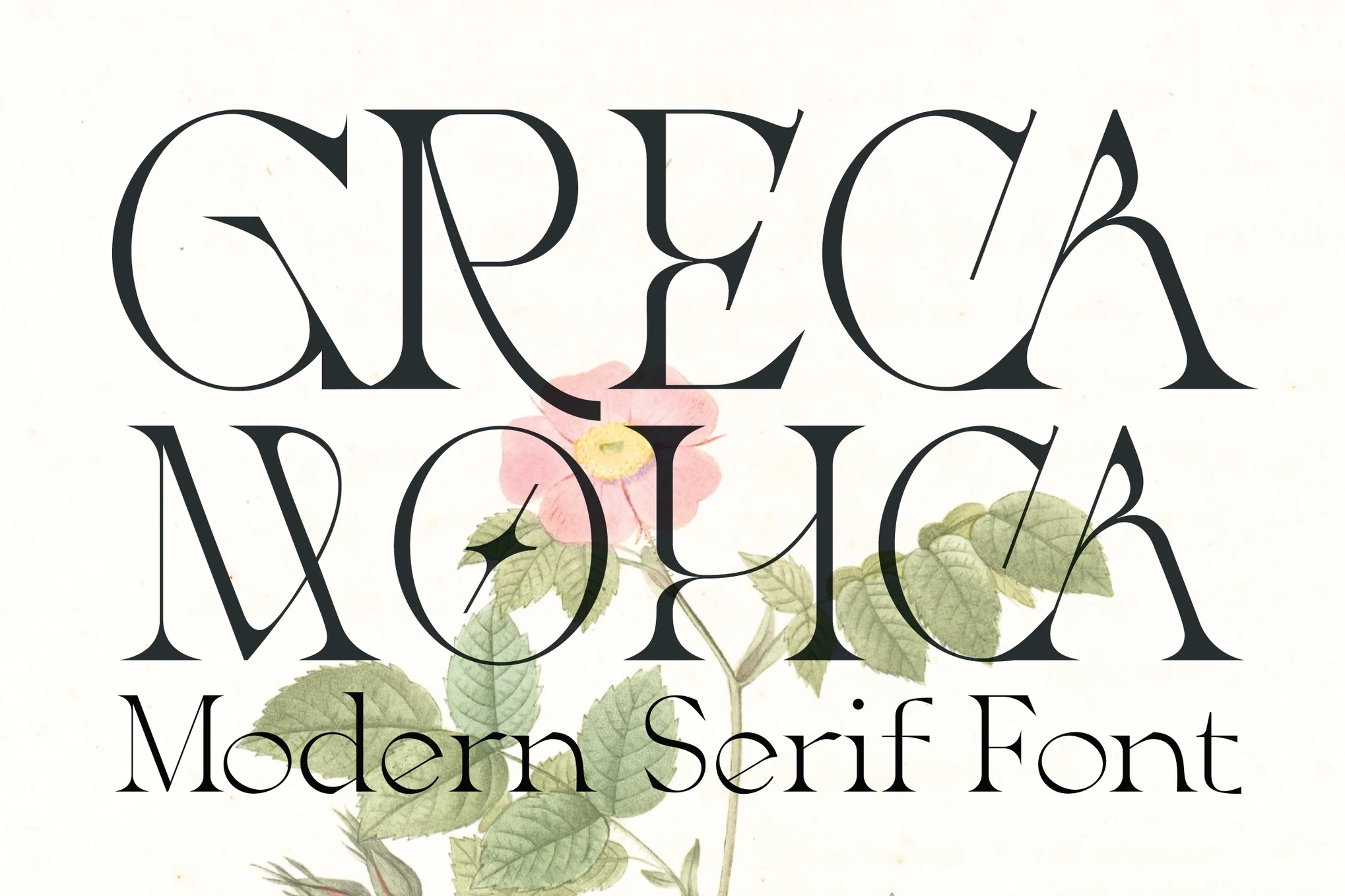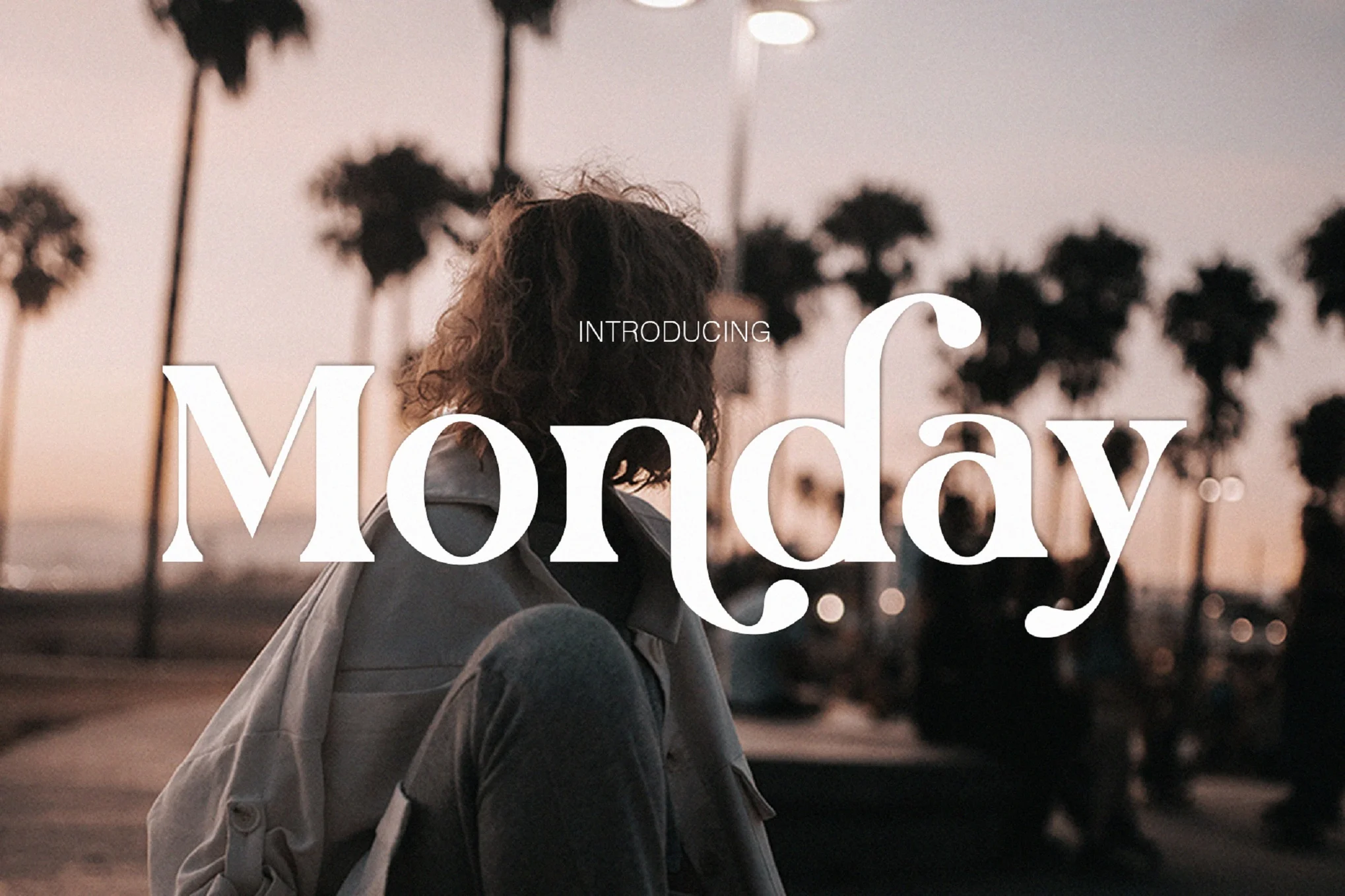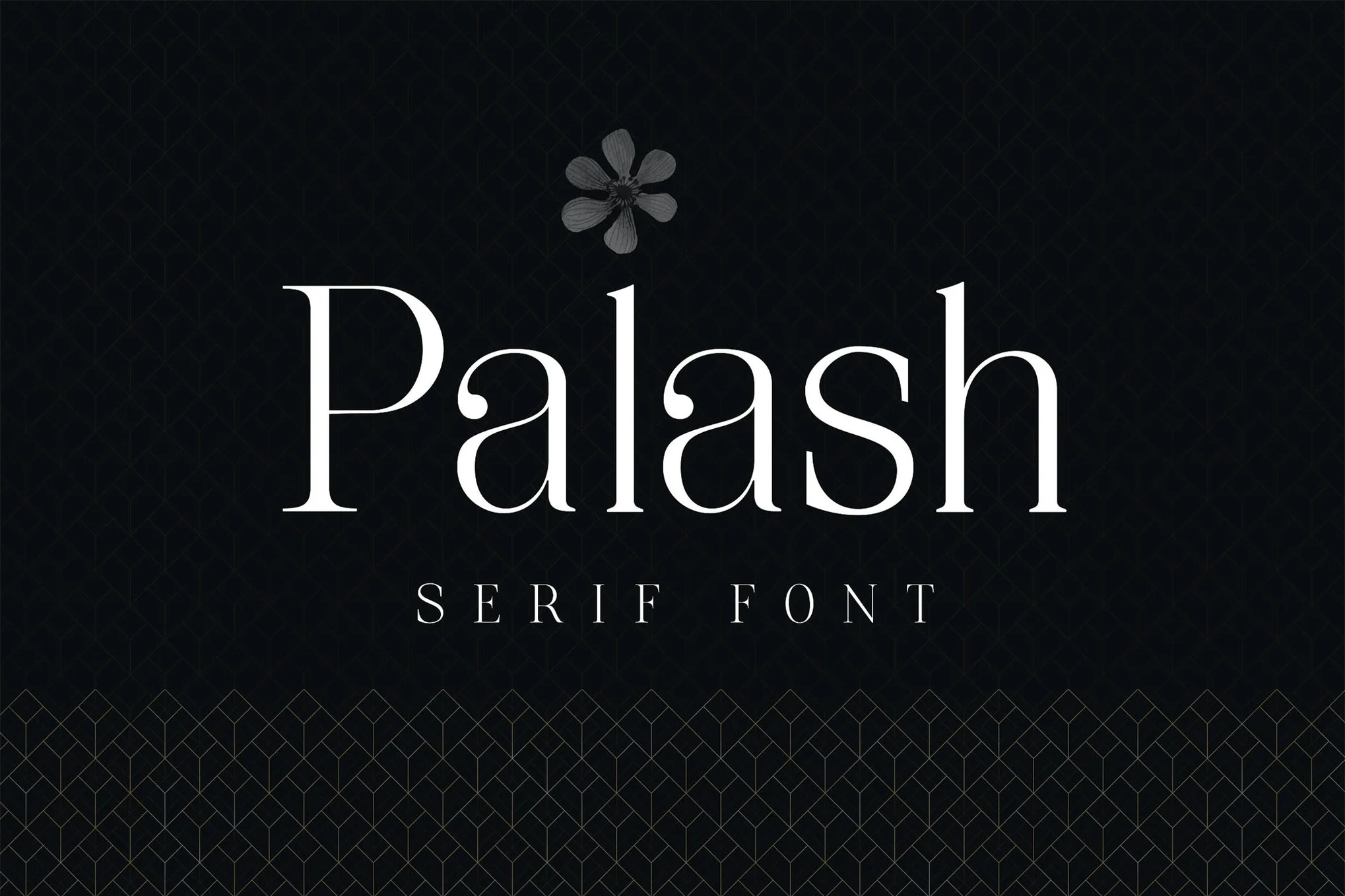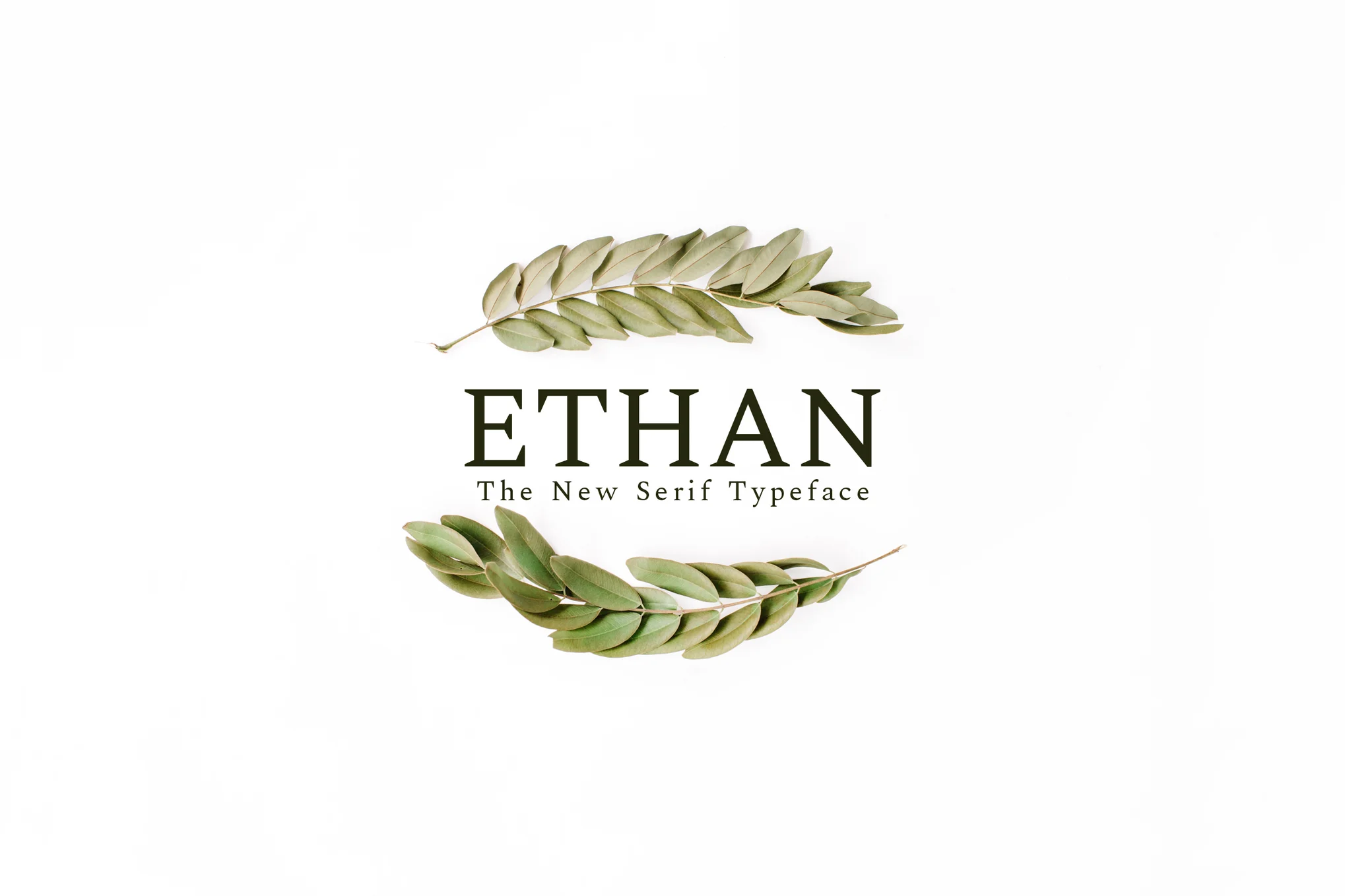
Looking for the absolute best serif fonts to elevate your design game? Your search ends right here! Serif fonts, known for their touch of sophistication and elegance, play a pivotal role in creating logos that exude class and distinction.
With their distinctive โlittle feetโ accents, navigating the vast array of serif fonts can be a captivating journey. To simplify this exploration, weโve meticulously handpicked the top ten serif fonts. These selections promise to elevate your branding and logo designs with their refined and polished aesthetics.
While your personal favorite might not make our curated list, we encourage you to delve into these font options. Among them, discover revived classics and unique variations that can infuse your logo with an unparalleled identity.
What is a serif font?
A serif font is a font with serifs, or small lines, at the end of each stroke. Serif fonts are generally seen as more traditional and formal than sans serif fonts, which do not have serifs. Serif fonts are often used in print media, such as books and newspapers, while sans serif fonts are more commonly used for digital media, such as websites and apps.
How to use a serif font?
Serif fonts are the most common type of font used in print media. They are easy to read and have a classic, timeless look. When used for body text, serif fonts are generally best paired with a sans serif font for headings or other short blocks of text.
Doโs and donโts of using a serif font?
When using serif fonts, it is important to consider the following:
- Use serif fonts for body copy
- Use a larger size for serif fonts to ensure readability
- Consider the overall tone you wish to convey with your serif font choice
23+ Best Serif Fonts for Eye-Catching Typography
1.ย Macloney โ Bold Serif Font
Macloney is a bold serif font perfect for headlines, logos, and other creative uses. This unique font features sharp edges and tall letters, making it stand out from the crowd. Macloney is sure to grab attention and add personality to any project!
2. Felis Serif Font
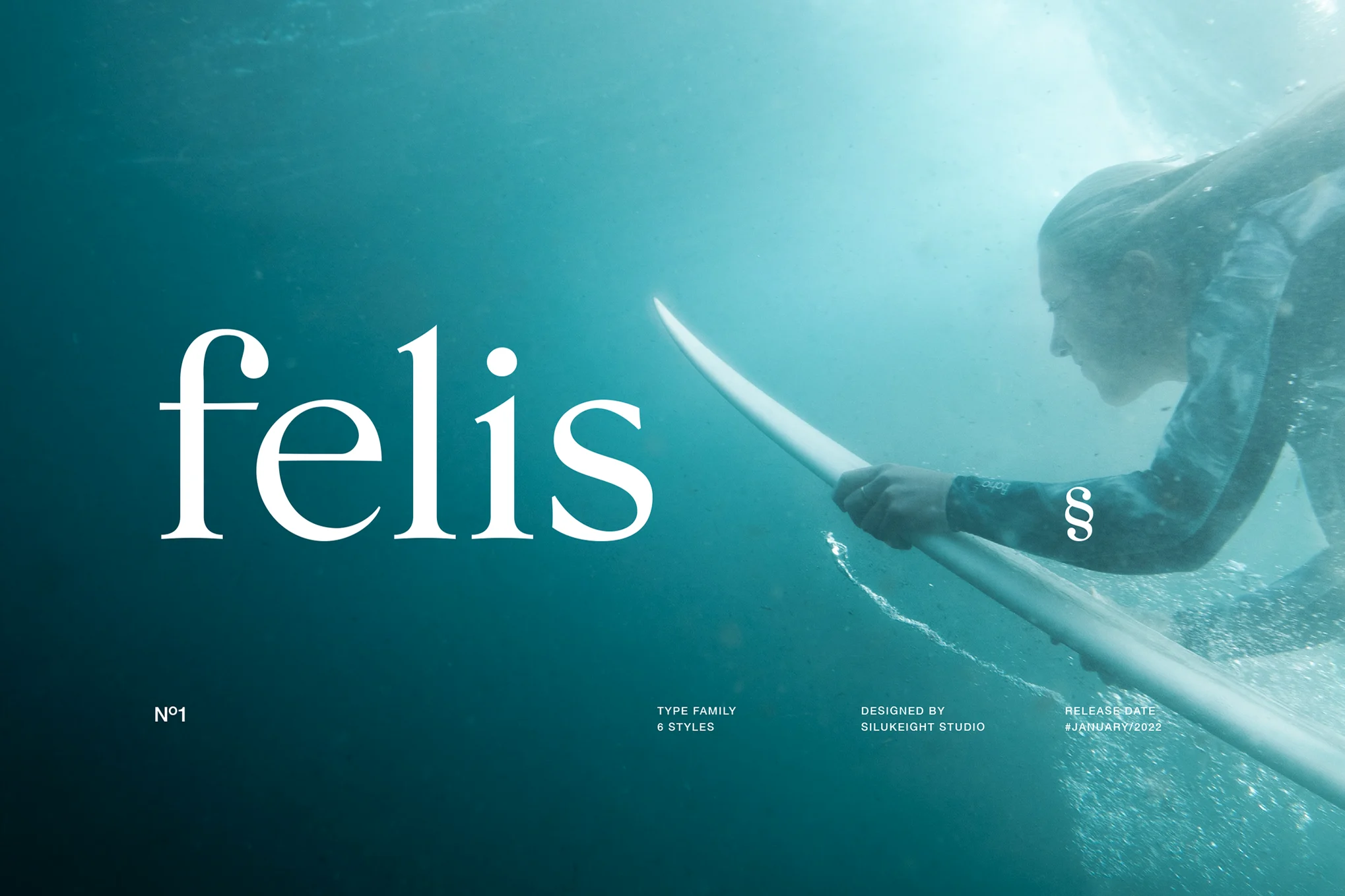
Macloney is a bold serif font perfect for headlines, logos, and other creative uses. This unique font features sharp edges and tall letters, making it stand out from the crowd. Macloney is sure to grab attention and add personality to any project!
3. EROS- Serif Font
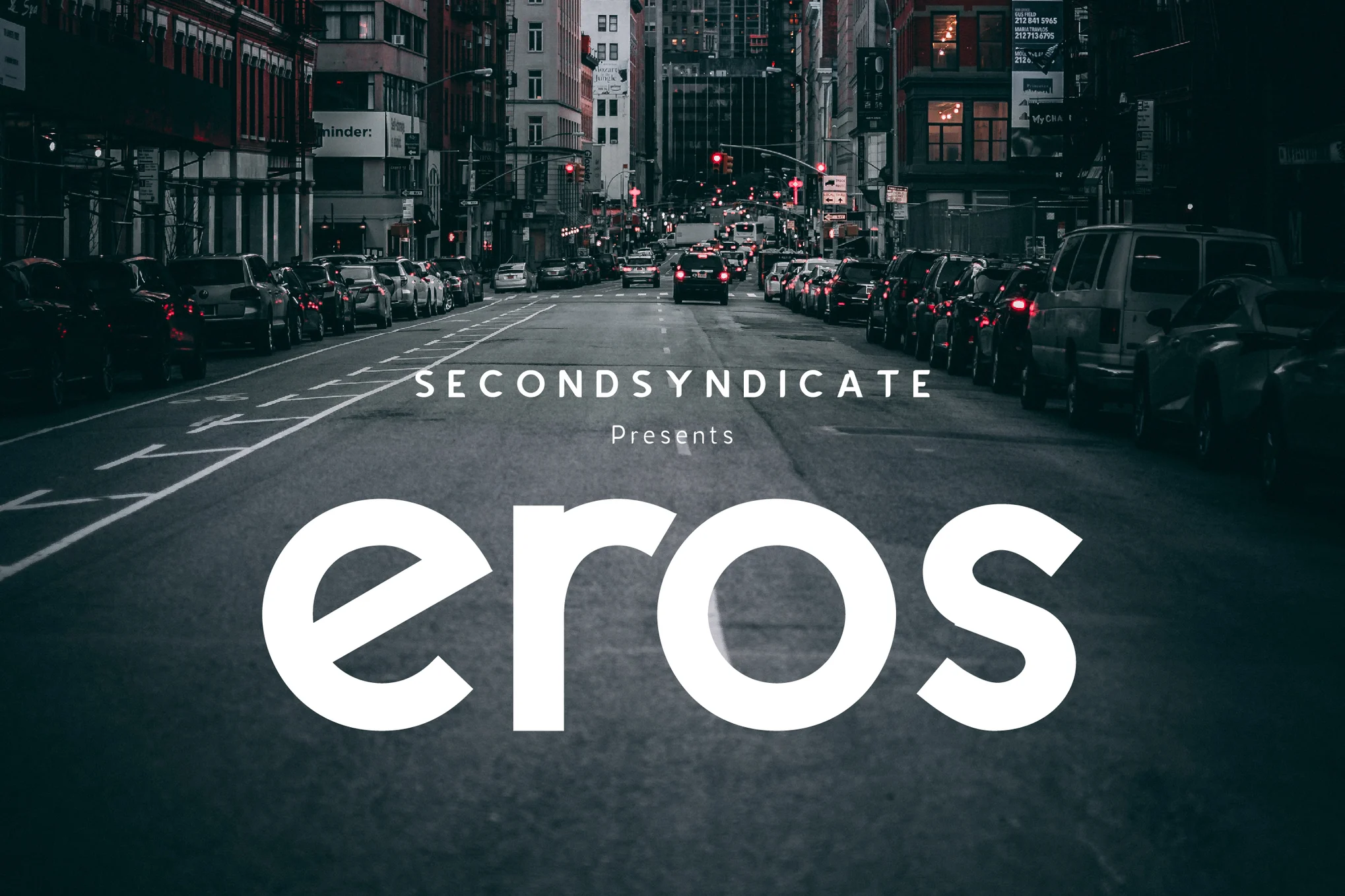
Eros- serif font is a type of font that includes small embellishments on the letters. These embellishments can consist of different shapes, such as hearts or arrows. The serifs help to make the text more readable and add visual interest. This type of font is often used for headlines or titles because of its decorative nature.
5. Thetaly โ Display Serif Font
Thetaly Display Serif Font is a serif typeface with medium-large x-height. The serifs are slightly bracketed and have overall horizontal stress. The thinnest parts of the strokes have vertical stress. The letterforms have an open counter and a moderate contrast between thick and thin strokes.
6. Maraton-Modern Serif Font
Maraton is a modern serif font created by Type Foundry in 2014. The font was designed for body text and headlines and featured a clean, streamlined design. Maraton has been used by various publications, including The New York Times, Wall Street Journal, and Boston Globe.
7. Saint Pauline Serif Font
Saint Pauline Serif is a classic serif font with a modern twist. It is named after Saint Pauline of Tarsus, the patron saint of typographers. It pairs well with both sans serif and serif fonts. Saint Pauline Serif is available in regular, italic, and bold weights.
8. Konseric Luxury Serif Font
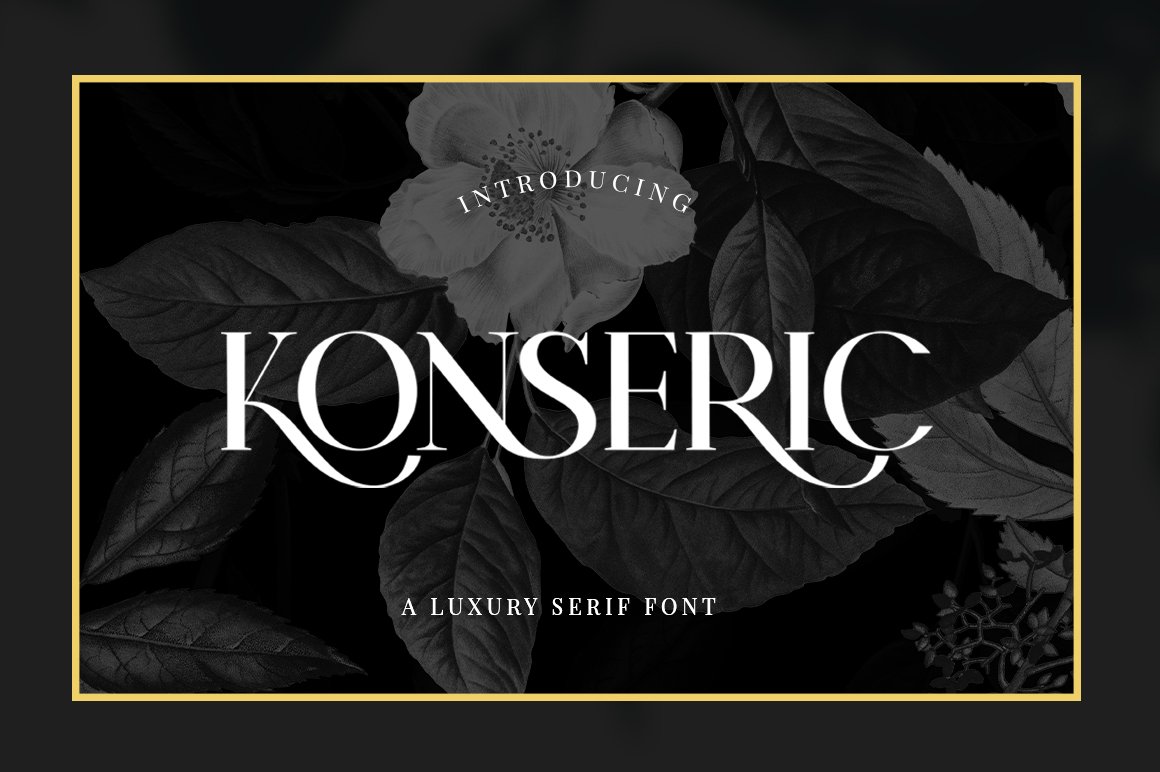
Konseric Luxury Serif Font is a beautiful, elegant serif font perfect for luxury and high-end brands. The font has a classic look and feels, making your brand stand out from the rest. With its unique style, Konseric Luxury Serif Font is the perfect choice for any luxury brand that wants to make a statement.
24. Alisheia โ an Elegant Serif Font
Alisheia is the epitome of sophistication and modernity. With its trendy serif style, itโs perfect for luxury projects like branding, logos, invitations, and more. This versatile font offers variations in uppercase and lowercase, extensive language support, and a wide range of alternates and ligatures. Compatible with various design software, Alisheia empowers you to unleash your creativity and elevate your designs to new heights.